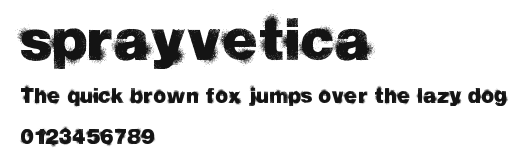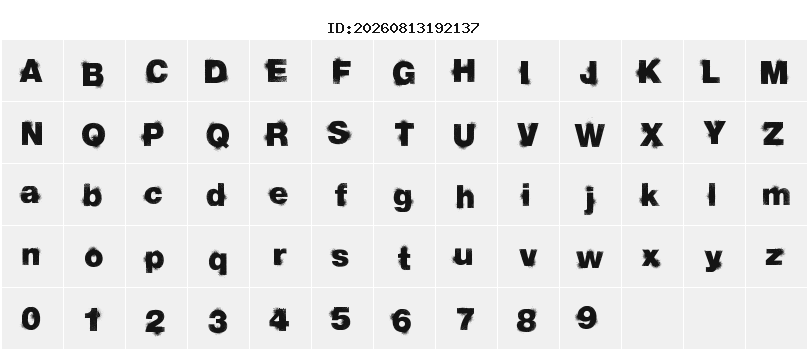
sprayvetica Preview
• Font Name: sprayvetica
• Font ID: sprayvetica:Version 1.00
• Full Font Name: sprayvetica
• Version: Version 1.00 February 20, 2012, initial release
• PostScript Name: sprayvetica
• Character Count: 102
• Designer: 䵡砠䥮晥汤
• Manufacturer: ㌳瑨楲?
About sprayvetica.ttf
sprayvetica.ttf is a modern, elegant sans-serif font designed for ultimate readability and visual harmony. Perfect for branding, headlines, web design, and print materials.